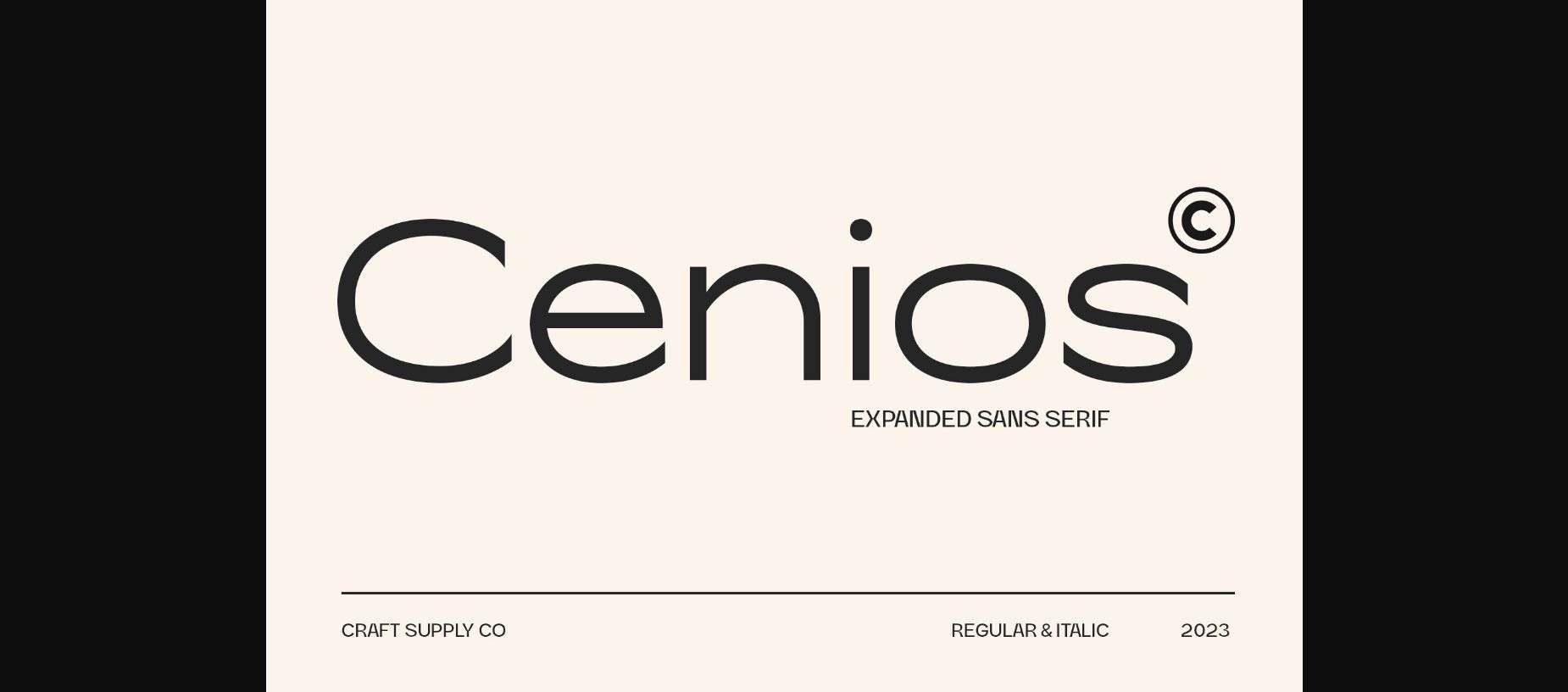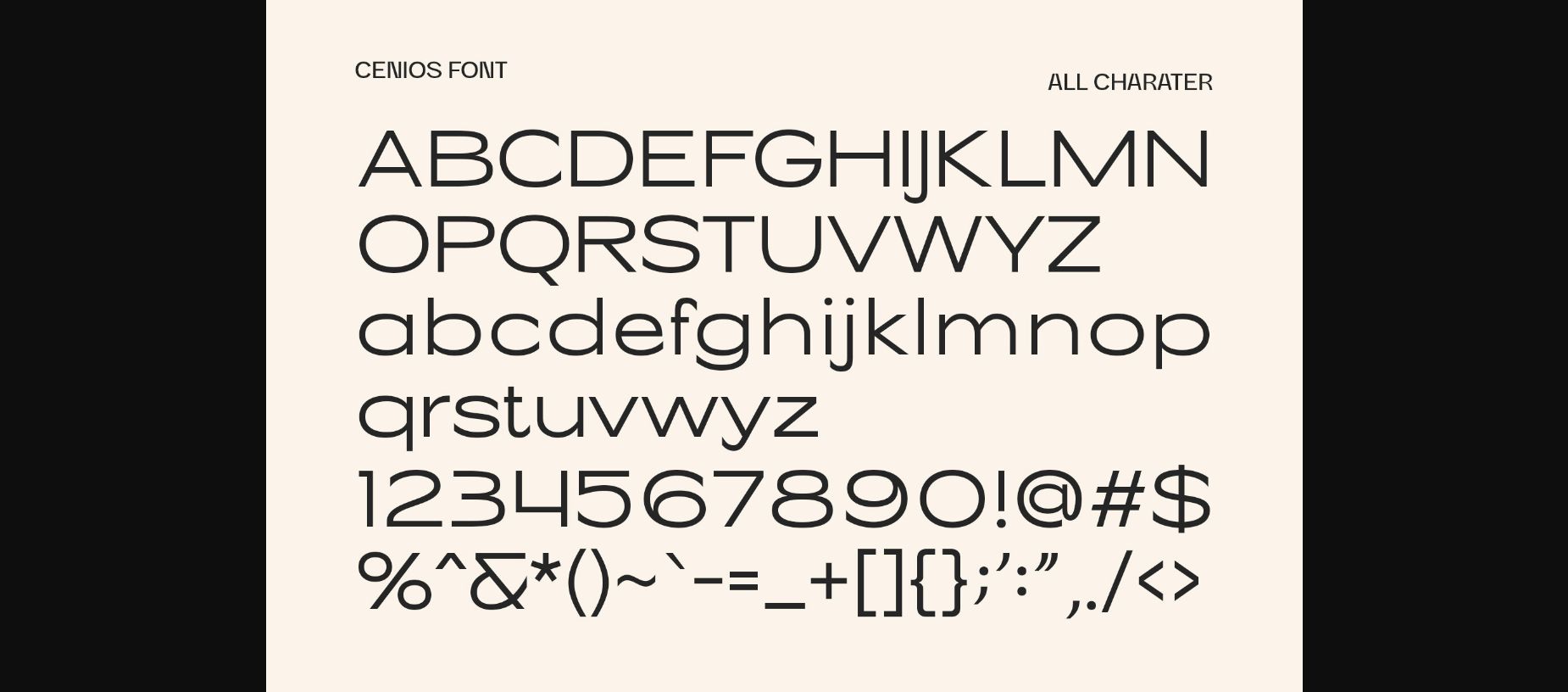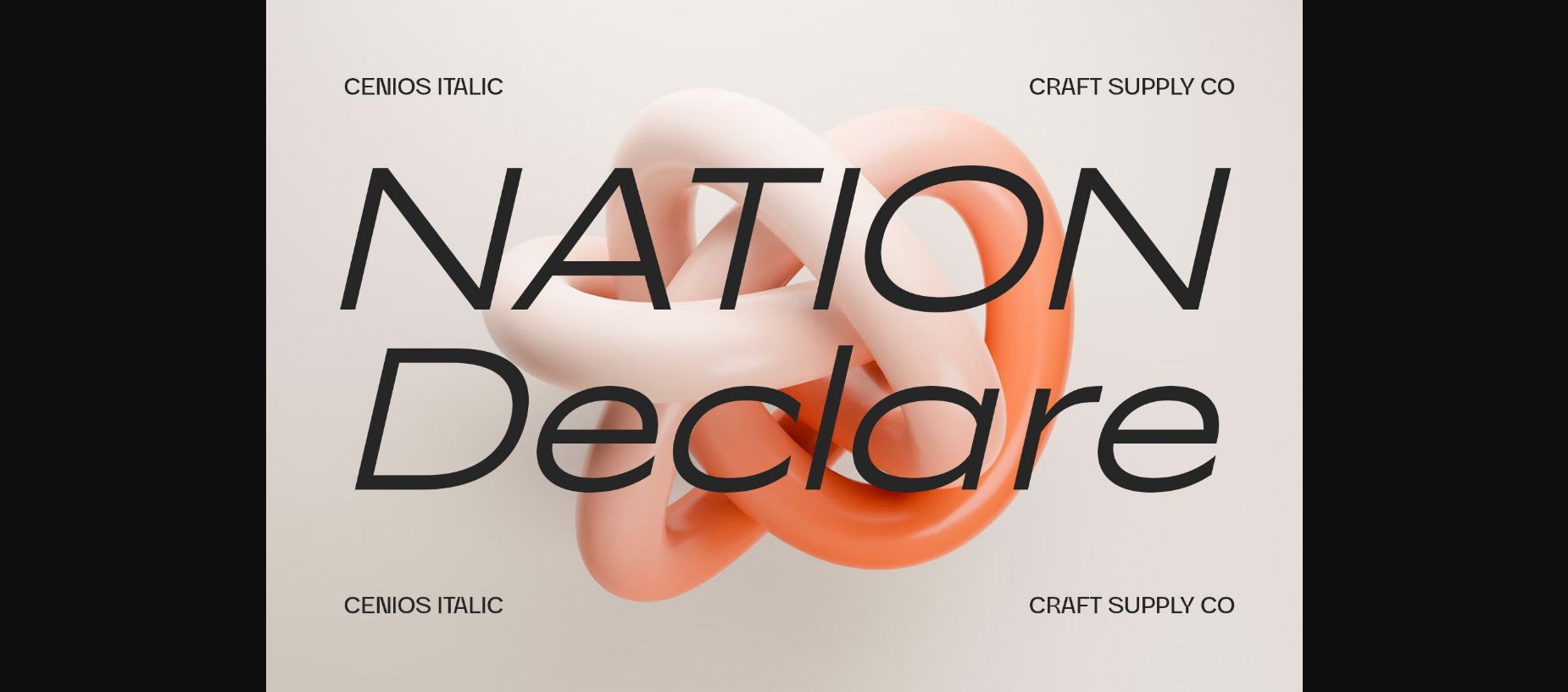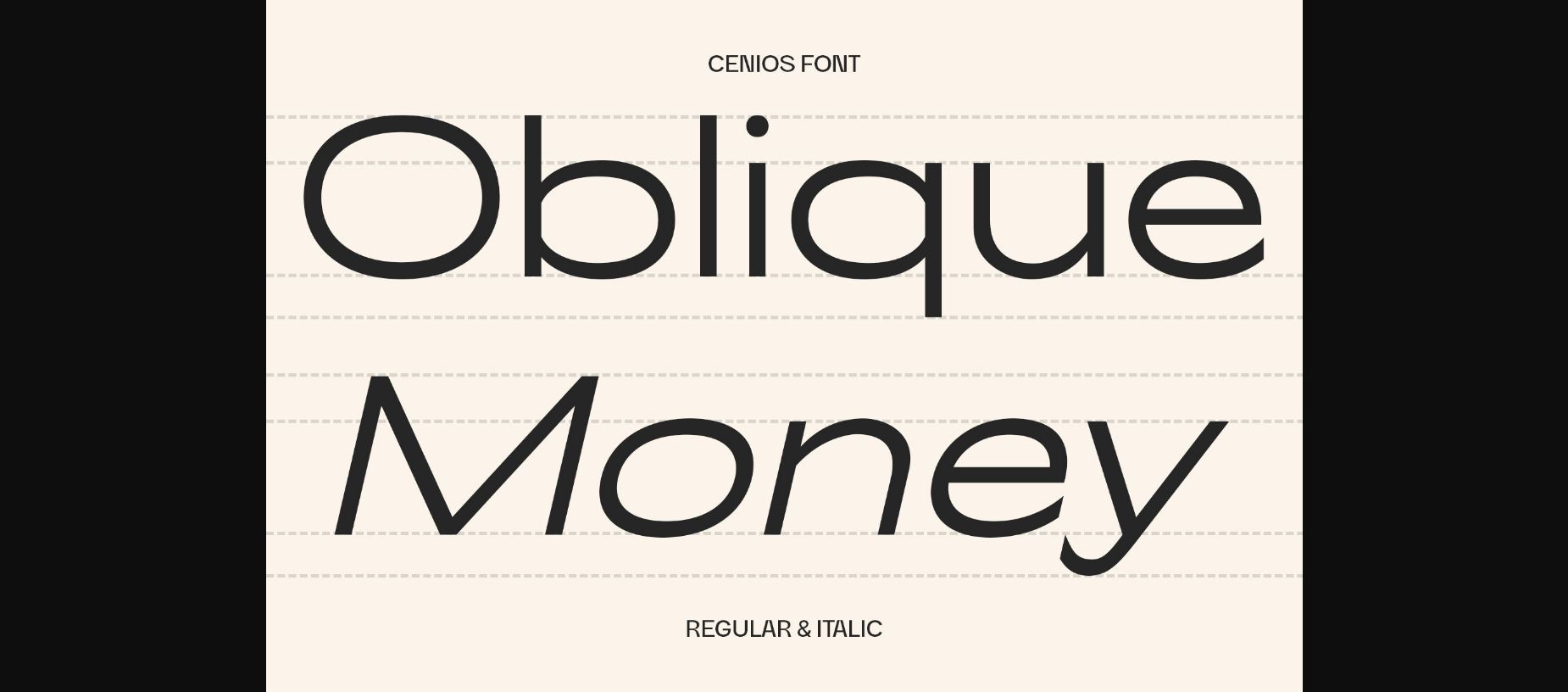
About Cenios Font
Presenting Cenios: An expanded sans-serif font that ushers in a new era of design. With its generously spaced letterforms and contemporary charm, Cenios injects fresh modernity into your projects. Embrace the broadened possibilities with Cenios’ expansive style, perfect for making bold statements and maximizing visual impact.
This typeface is ideal for greeting cards, packaging, brand identity, poster, or any purpose to make your design project look eye-catching and trendy. Feel free to play with this typeface!